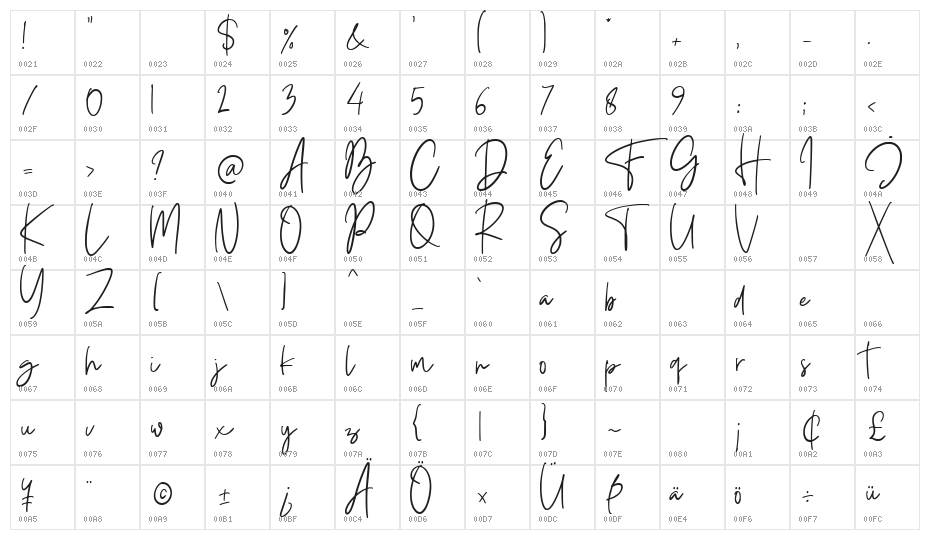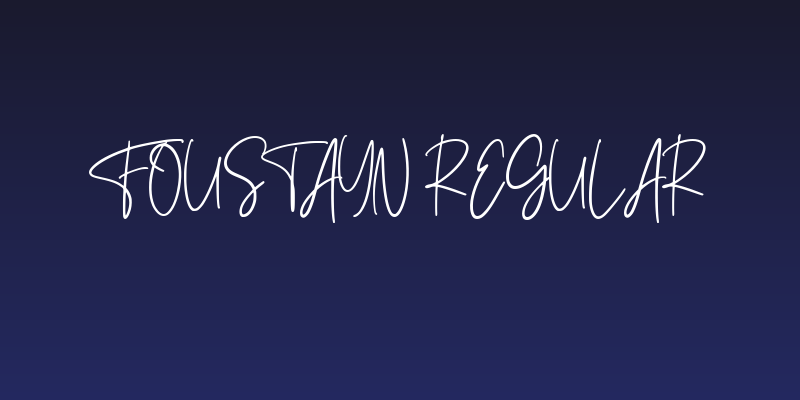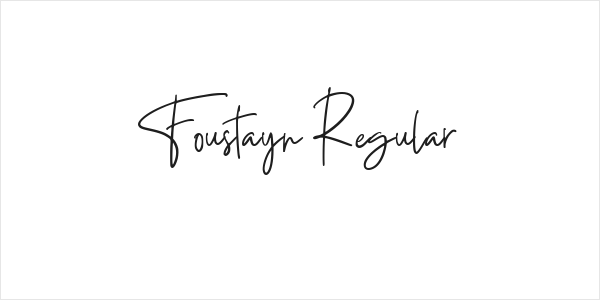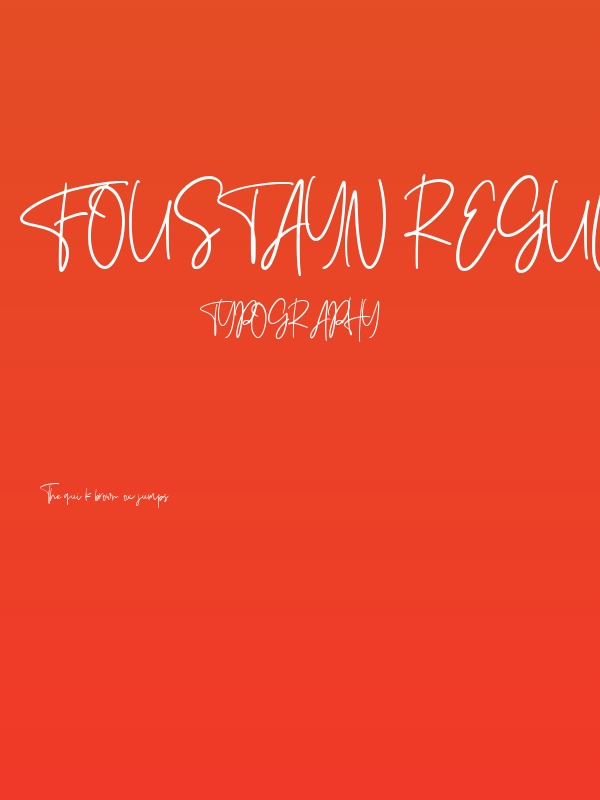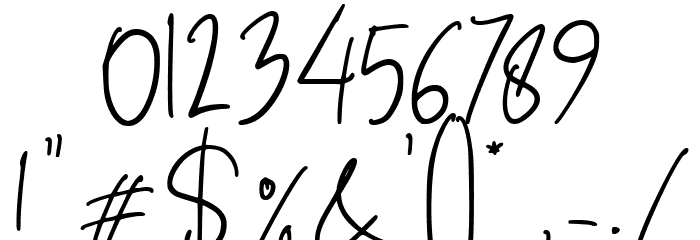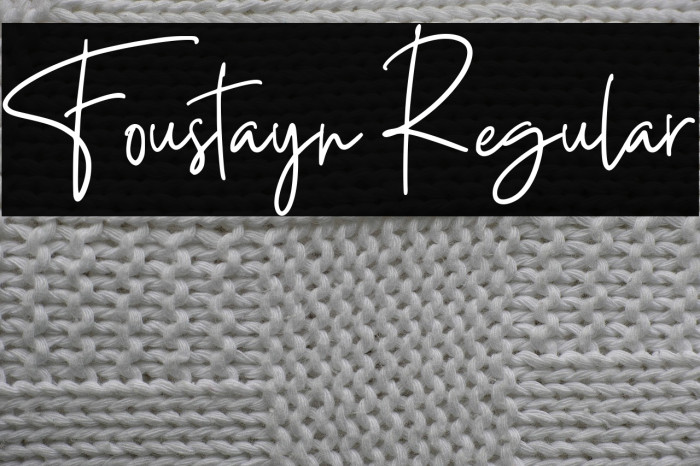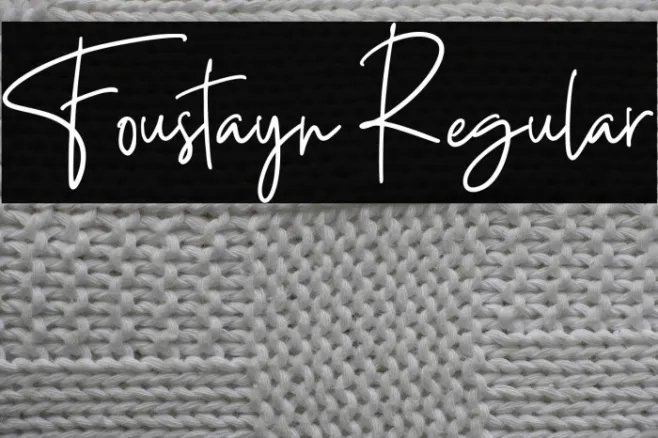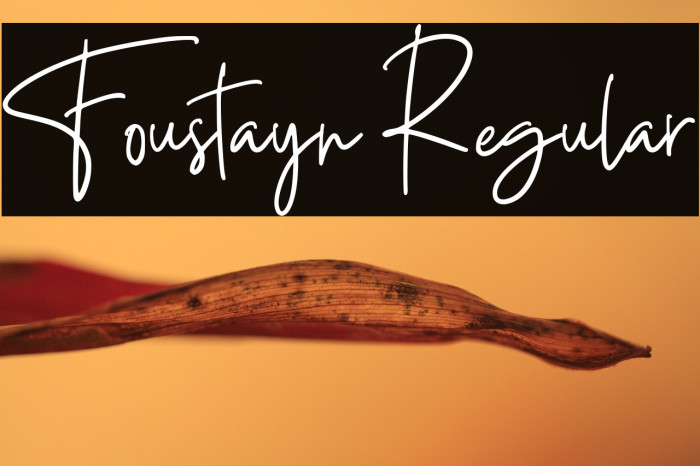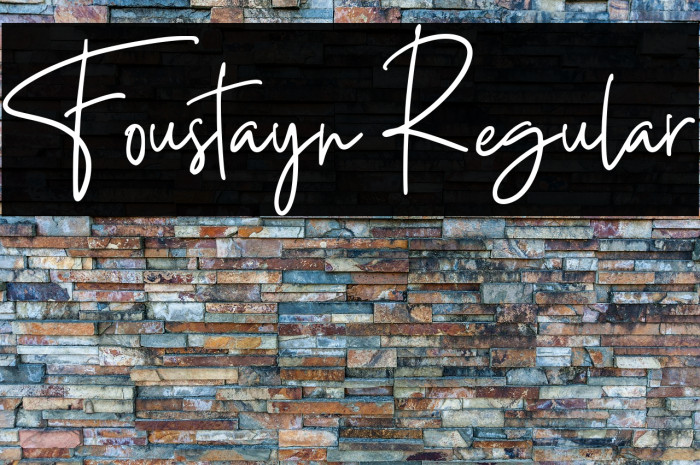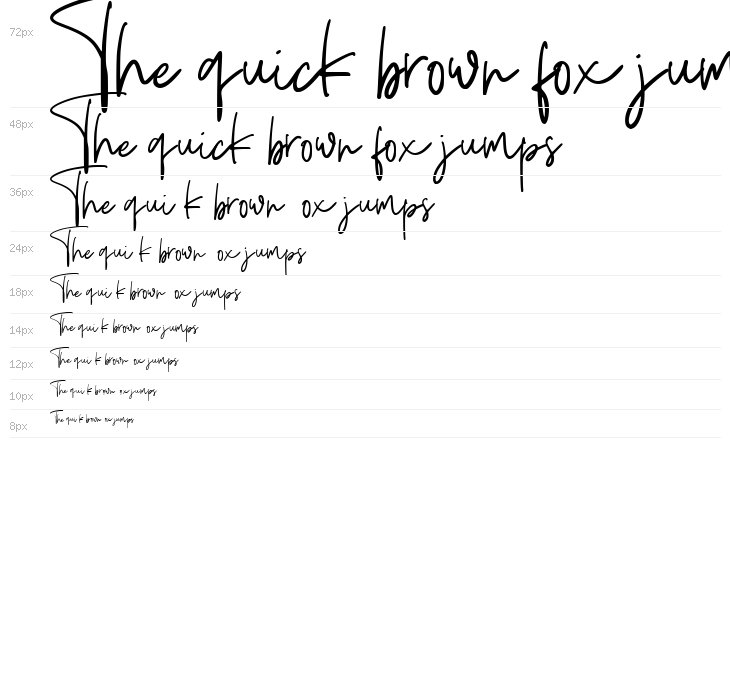
Foustayn Regular Font
Foustayn Regular Description
This font exhibits a lively and dynamic handwritten style, characterized by its fluid and cursive letterforms. The uppercase and lowercase letters are crafted with a natural flow, giving the impression of a personal touch. The strokes vary in thickness, adding a sense of movement and energy to the text. The numerals and special characters maintain the same playful and informal aesthetic, making the font suitable for creative and expressive projects. The overall appearance is both modern and approachable, with a touch of whimsy.